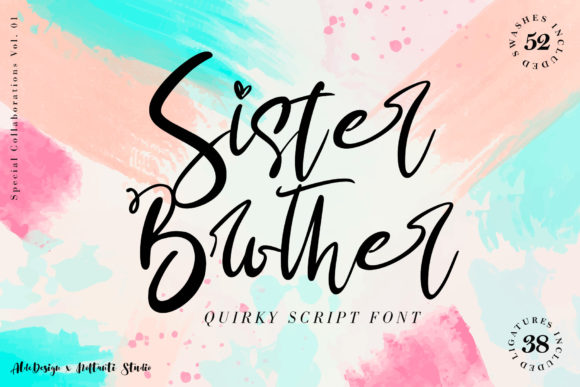
Sister Brother Font Review: Authentic Handwritten Branding
Opening a blank artboard for a new artisanal skincare client, I immediately reached for Sister Brother to anchor the visual identity with something that felt genuinely human rather than digitally manufactured. This specific typeface stands out in the crowded marketplace of Promo materials and creative Fonts because it captures a texture that is notoriously difficult to replicate on screen. As a brand designer who has tested countless scripts, I found that Sister Brother results out of a stunning pairing of a brush pen and pencil that makes it look incredibly endearing and authentic, avoiding the sterile perfection that often plagues modern digital lettering. When you use this gorgeous and unique handwritten font to bring any DIY project or commercial branding effort to life, you are essentially importing the tactile warmth of analog tools directly into your vector workflow.
Sister Brother Results Out of a Stunning Pairing for Logo Design
When evaluating Sister Brother for primary logo applications, the first thing that strikes you is the deliberate imperfection in the stroke weight and terminal endings. In my recent testing for a boutique botanical shop identity, I needed a wordmark that communicated "hand-blended" and "small-batch" without looking amateurish. Sister Brother results out of a stunning pairing of a brush pen and pencil that makes it look incredibly endearing and authentic, which provided the exact organic variance required for a heritage-style logo. The brush strokes offer enough boldness to remain legible at smaller sizes, while the pencil-like texture adds a layer of fragility and care that suggests artisanal craftsmanship.
Unlike many display fonts that rely on excessive swashes or chaotic ligatures, this typeface maintains a disciplined rhythm that works beautifully for business names. During the sketching phase, I placed the font against both cream-colored textured paper backgrounds and clean white digital canvases. On the textured stock, the pencil grain merged seamlessly, creating an illusion of physical print. On the white digital background, the contrast highlighted the unique hybrid nature of the toolset. For designers working on brand identities where trust and personal touch are paramount, this font serves as an immediate visual cue of authenticity. It avoids the "template" look that can devalue premium handmade products, positioning the brand instead as thoughtful and bespoke.
Using Sister Brother to Bring Any DIY Project to Packaging
Packaging design demands a hierarchy where readability meets emotion, and I tested whether one could effectively use this gorgeous and unique handwritten font to bring any DIY project or product label to completion without sacrificing clarity. For a mockup involving amber glass dropper bottles and recycled kraft boxes, Sister Brother performed exceptionally well as a secondary accent typeface. While I utilized a clean geometric sans serif for the mandatory regulatory text and ingredient lists, Sister Brother took center stage for the product descriptors like "Lavender & Oat" and "Hand-Poured Daily." The interplay between the structured information and the fluid, emotive script created a balanced layout that felt professional yet intimate.
The texture of the font also plays a critical role in print production considerations. Because Sister Brother mimics the friction of pencil on paper, it holds up remarkably well on uncoated stocks where ink tends to spread slightly. On glossy finishes, however, designers should be mindful that the delicate pencil details might lose some definition, so adjusting the tracking or opting for a slightly heavier weight variation is advisable. In my packaging tests, the font helped bridge the gap between the raw material of the box and the refined nature of the product inside. It transforms a standard label into a storytelling device, suggesting that a real person was involved in the creation process. For small business owners managing their own packaging design, this typeface offers a high-impact way to elevate perceived value without requiring custom hand-lettering services.
Sister Brother Fonts for Social Media Graphics and Web Headers
Digital environments present different challenges for textured typography, yet integrating Sister Brother into social media graphics and website headers proved surprisingly versatile during my web design trials. When designing Instagram carousel templates and Pinterest pins for a creative studio refresh, I found that the font’s inherent personality reduced the need for additional decorative elements. The brush-and-pencil aesthetic provides built-in visual interest, allowing for cleaner layouts that still feel warm. Use this gorgeous and unique handwritten font to bring any DIY project or digital campaign to attention by utilizing it for short, punchy headlines rather than long captions. The key to success here is scale; on mobile screens, the finer pencil details can disappear if the point size is too small, so treating it as a bold display element is essential.
For website hero sections, Sister Brother acts as an excellent pattern interrupt. In a sea of minimalist sans serifs and sharp modern serifs, this organic script slows the user’s scroll and invites engagement. I tested it overlaying lifestyle photography and solid color blocks, finding that it maintained legibility in both contexts provided there was sufficient contrast. However, accessibility must remain a priority. Because the letterforms are irregular, I always recommend pairing this font with highly readable body copy and ensuring alt-text accurately reflects the content. It is not suitable for navigation menus or functional UI elements, but as a voice for brand slogans, testimonial highlights, or seasonal promotional banners within the broader category of creative Fonts, it delivers exceptional character.
Font Pairing Strategies and Commercial Licensing for Sister Brother
To maximize the effectiveness of this typeface, understanding how to pair it within a comprehensive typographic system is just as important as appreciating its standalone beauty. Sister Brother results out of a stunning pairing of a brush pen and pencil that makes it look incredibly endearing and authentic, which means it naturally craves the stability of a contrasting partner. In my branding projects, I have found that a low-contrast geometric sans serif (like Montserrat or Gotham) provides the perfect neutral foundation, allowing the script to shine without competing. Alternatively, a classic transitional serif can enhance the vintage, literary quality of the font for more editorial or heritage-focused brands. Avoid pairing it with other highly decorative scripts or distressed display fonts, as this creates visual noise and diminishes the unique charm of the brush-pencil hybrid.